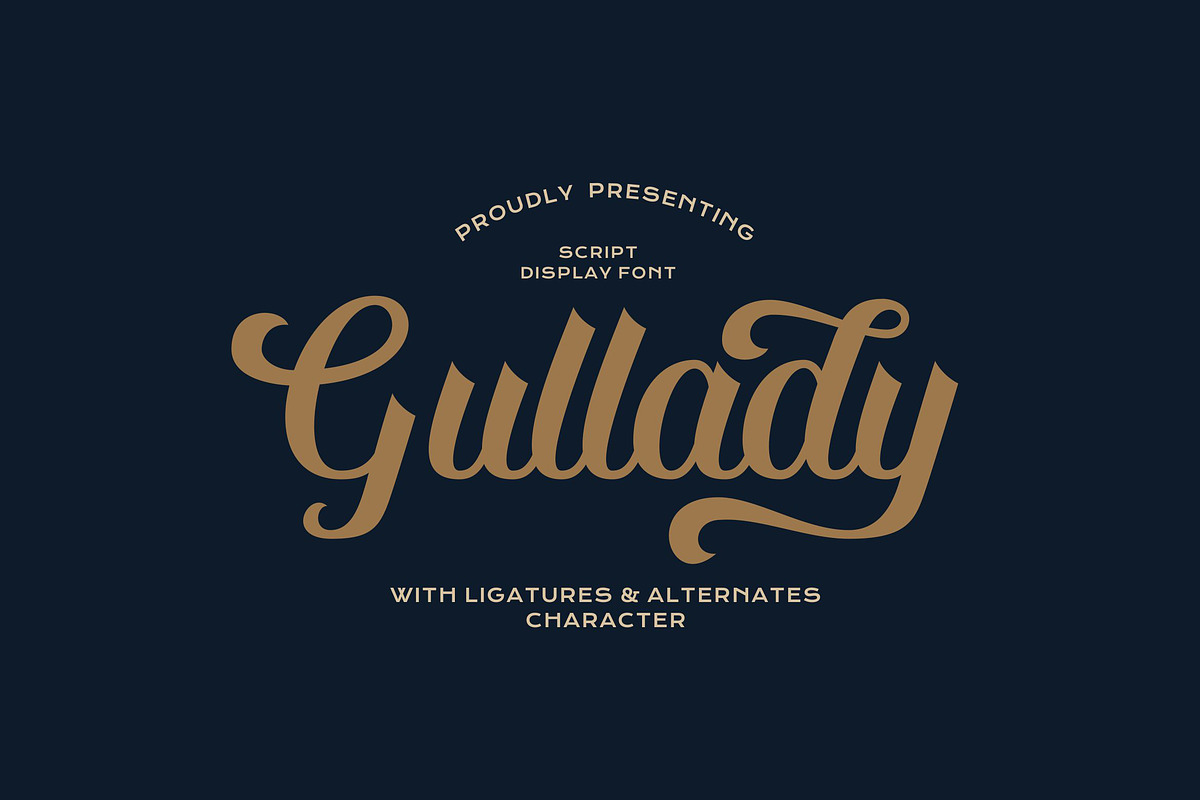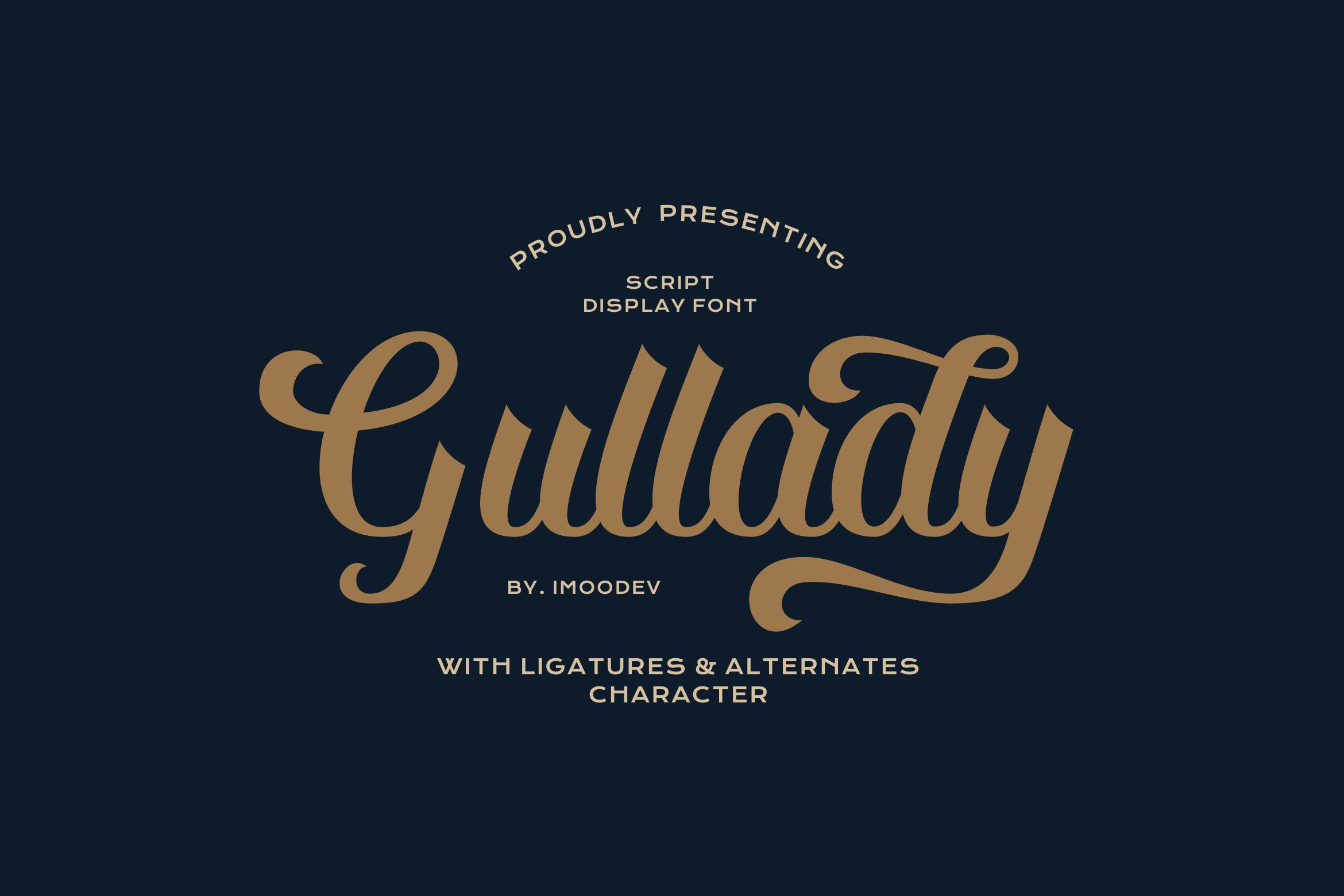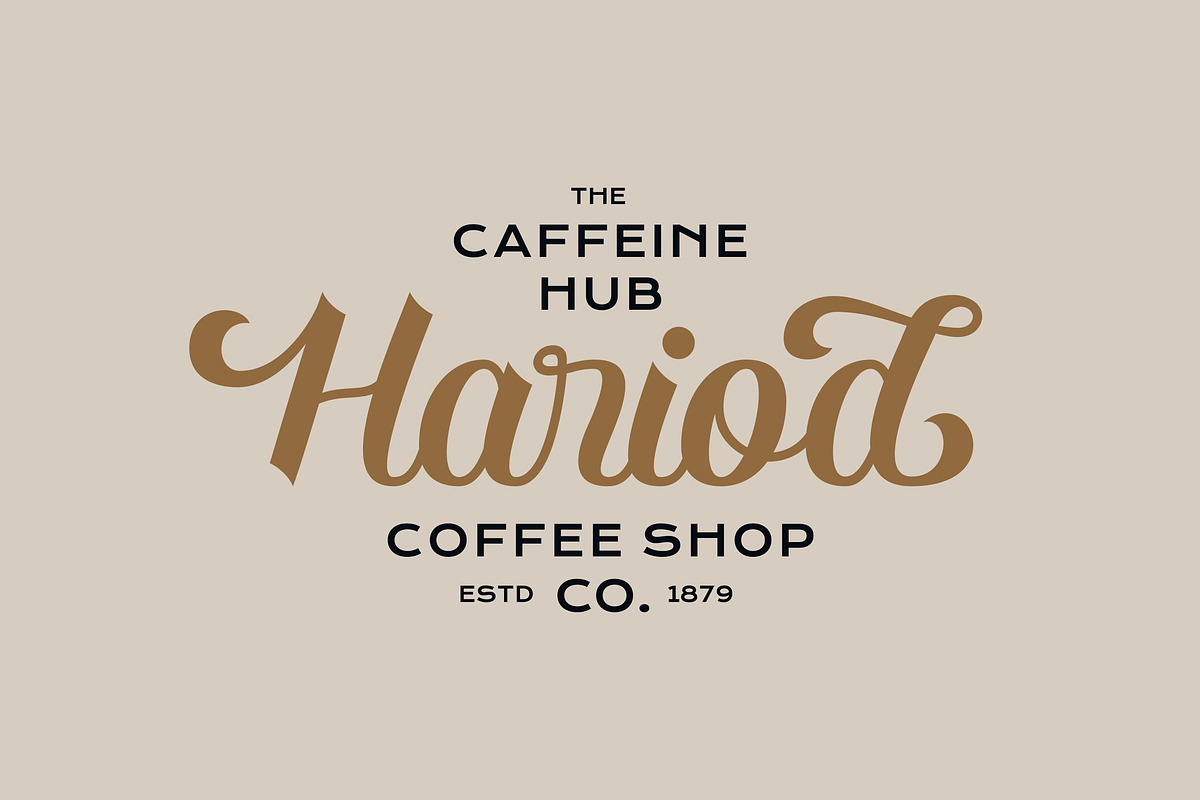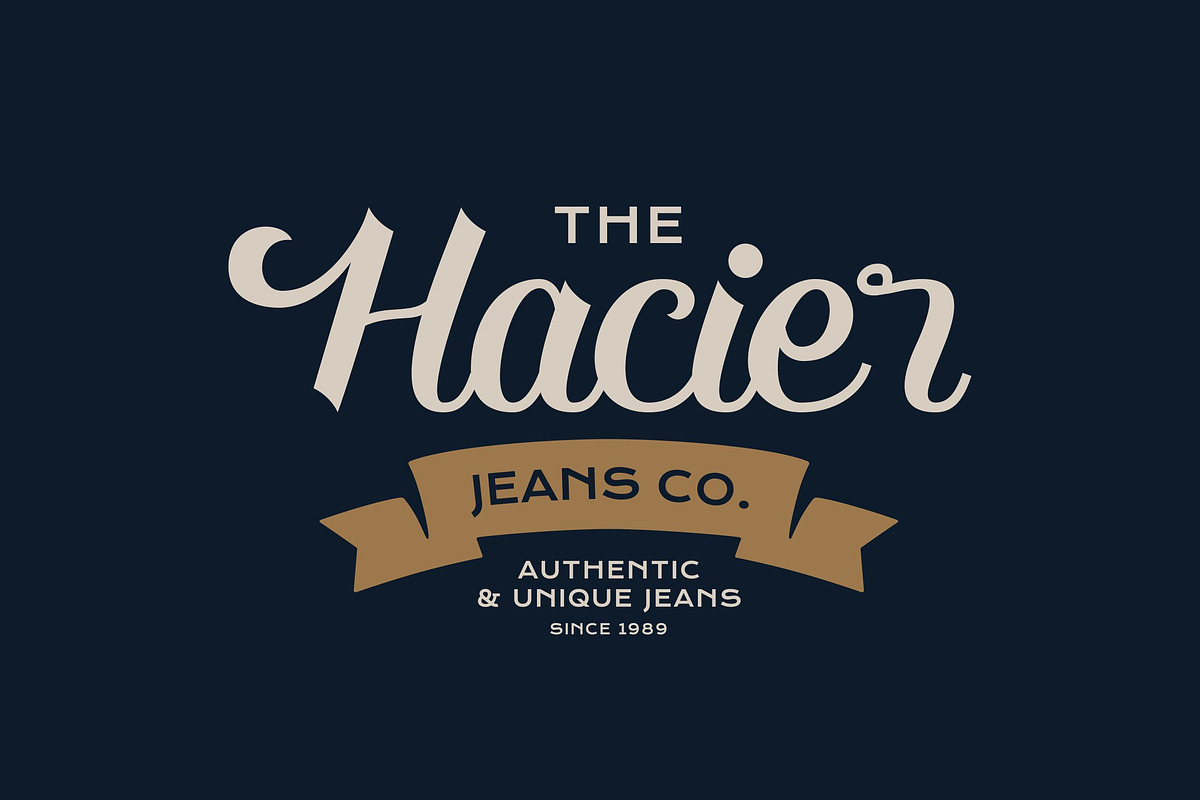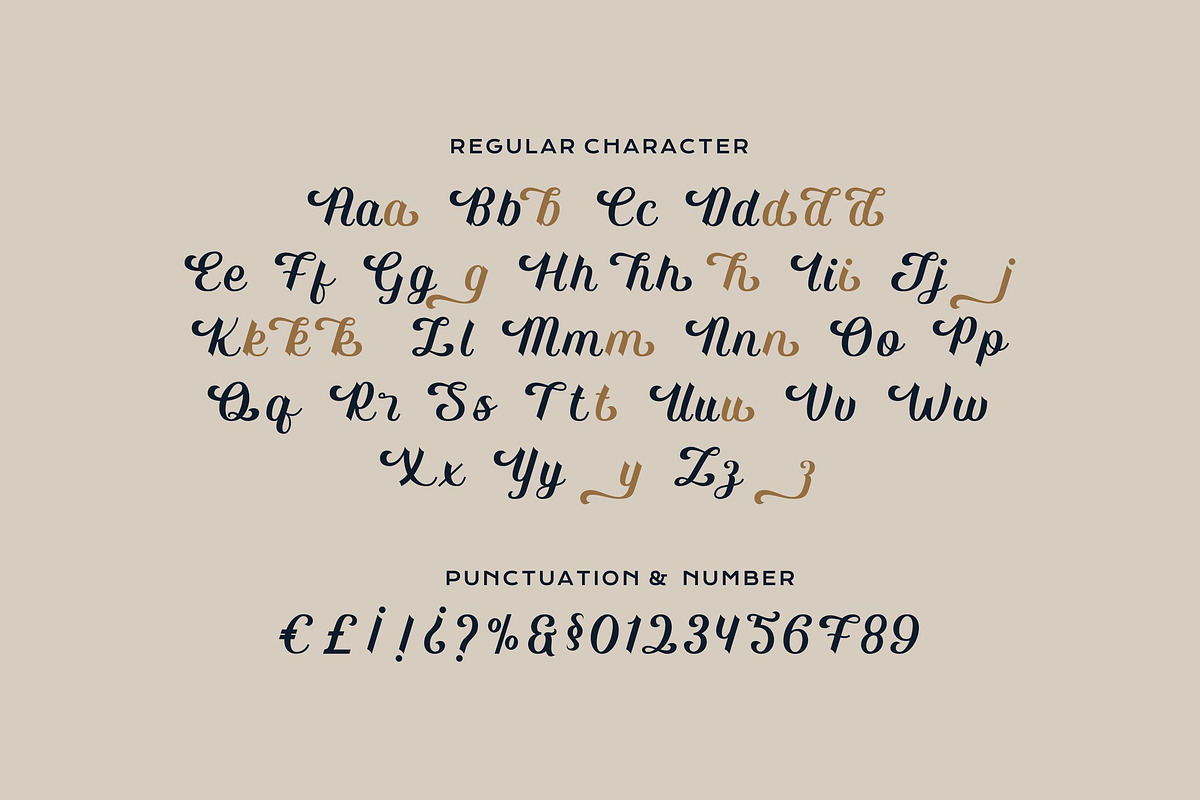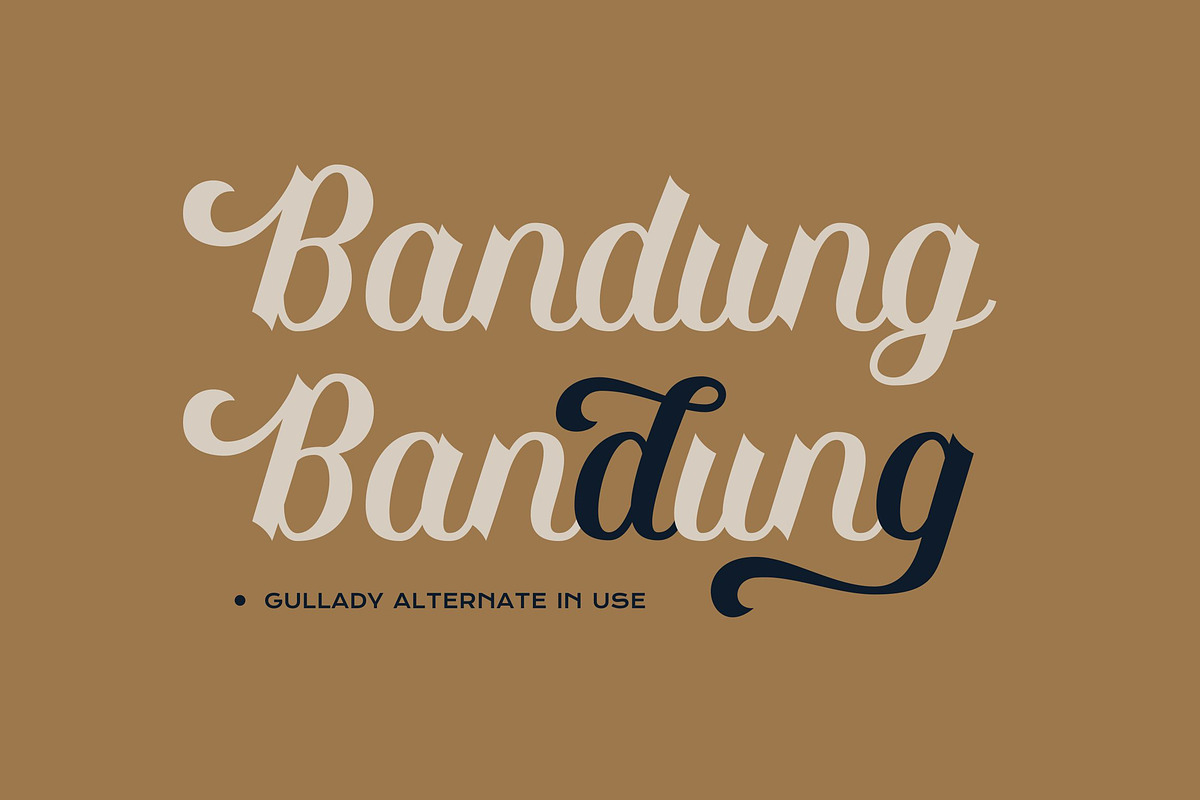
Gullady - Vintage Script Typeface
Step back in time with Gullady, a vintage script typeface that captures the heart and soul of mid century american craftsmanship. Gullady isn't just a typeface, it's a piece of nostalgia, echoing the bold, hand painted lettering that graced classic storefronts, local diner menus, and heritage brand logos.
Gullady is crafted with thick, fluid strokes and graceful curves, giving it a powerful yet friendly presence. Its letters are designed to connect smoothly, creating iconic emblems, this font provides everything you need to build a cohesive vintage aesthetic.
Perfect for heritage branding, logos for cafes, barbershops, apparel companies, retro themed posters, and any design project that needs a stamp of authenticity and timeless appeal.
Ton of Glyphs
Uppercase and Lowecase Characters.
Numerals and Punctuations.
Alternates and Ligatures.
Multilingual Support.